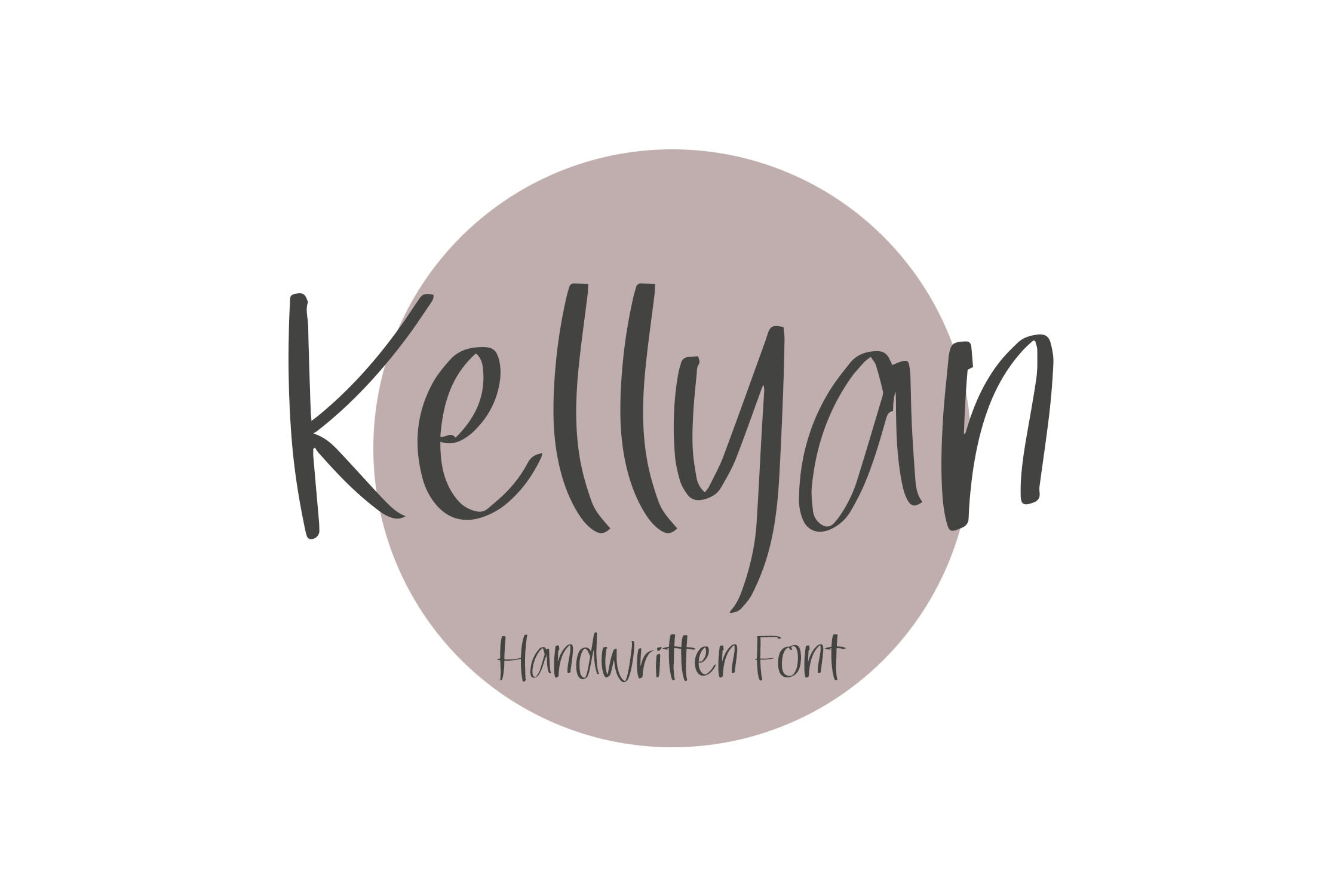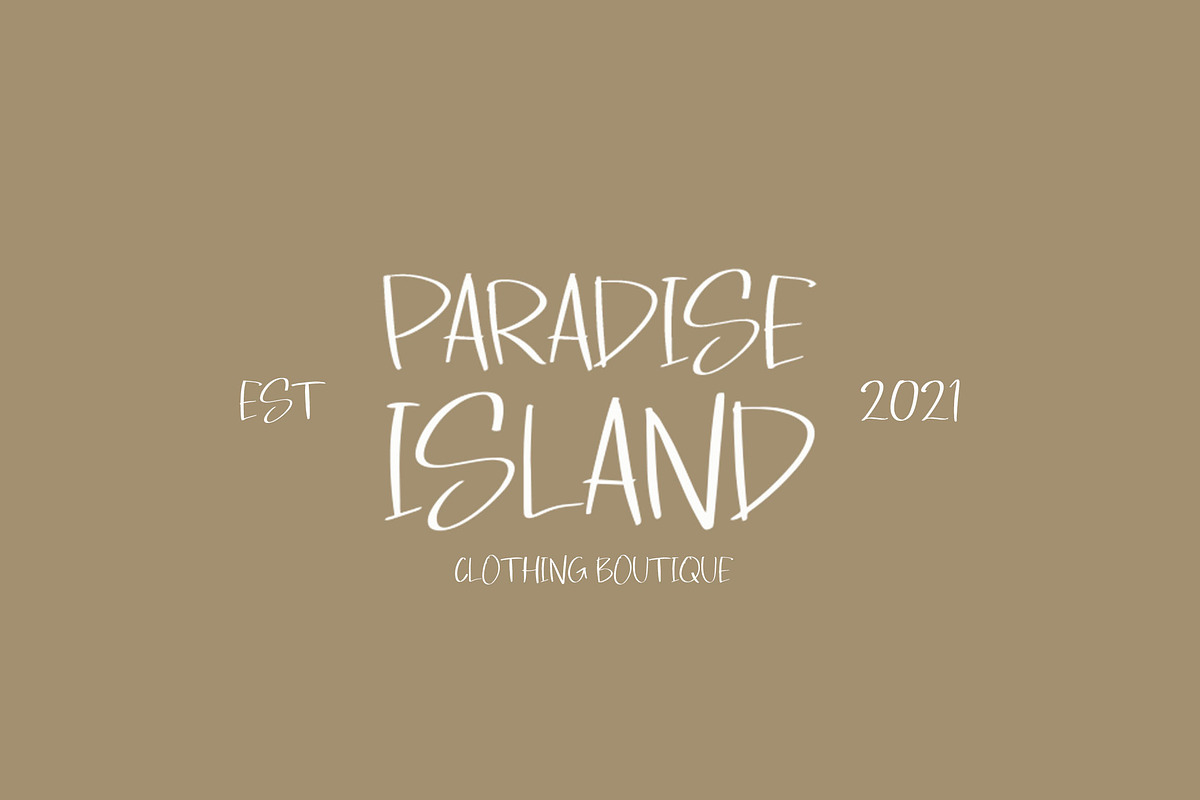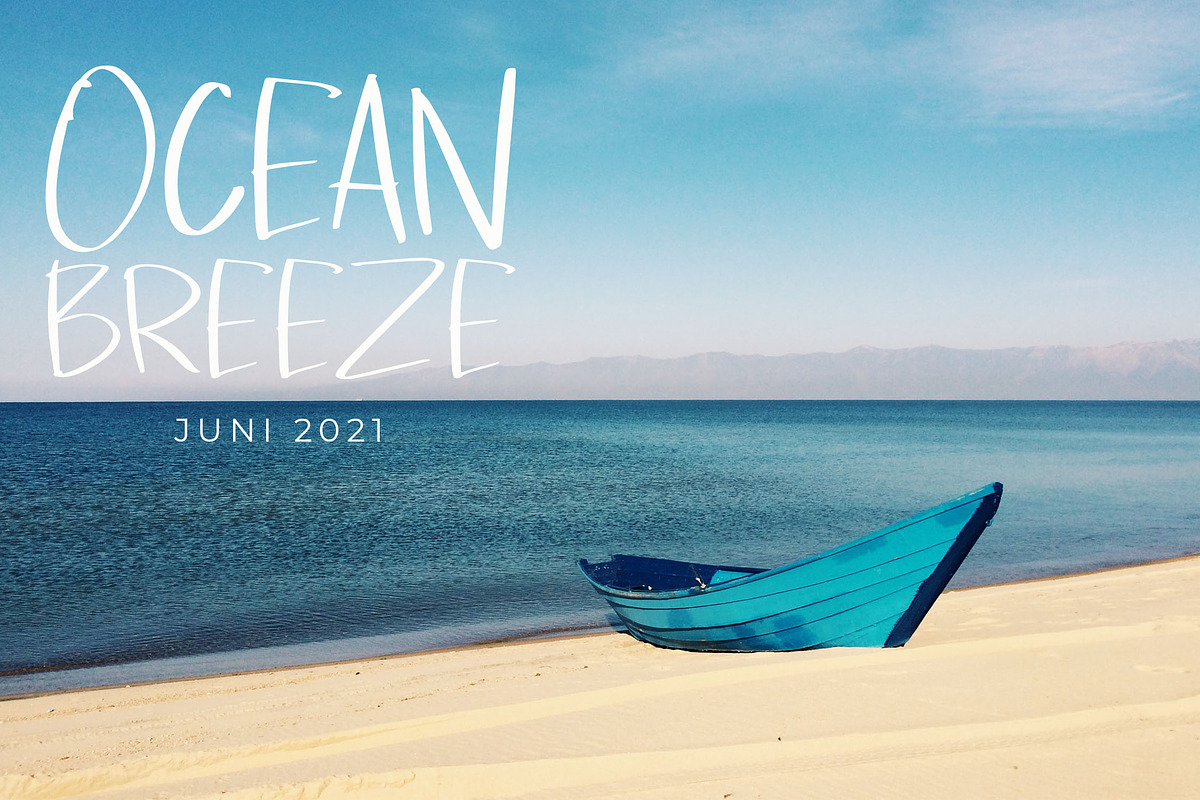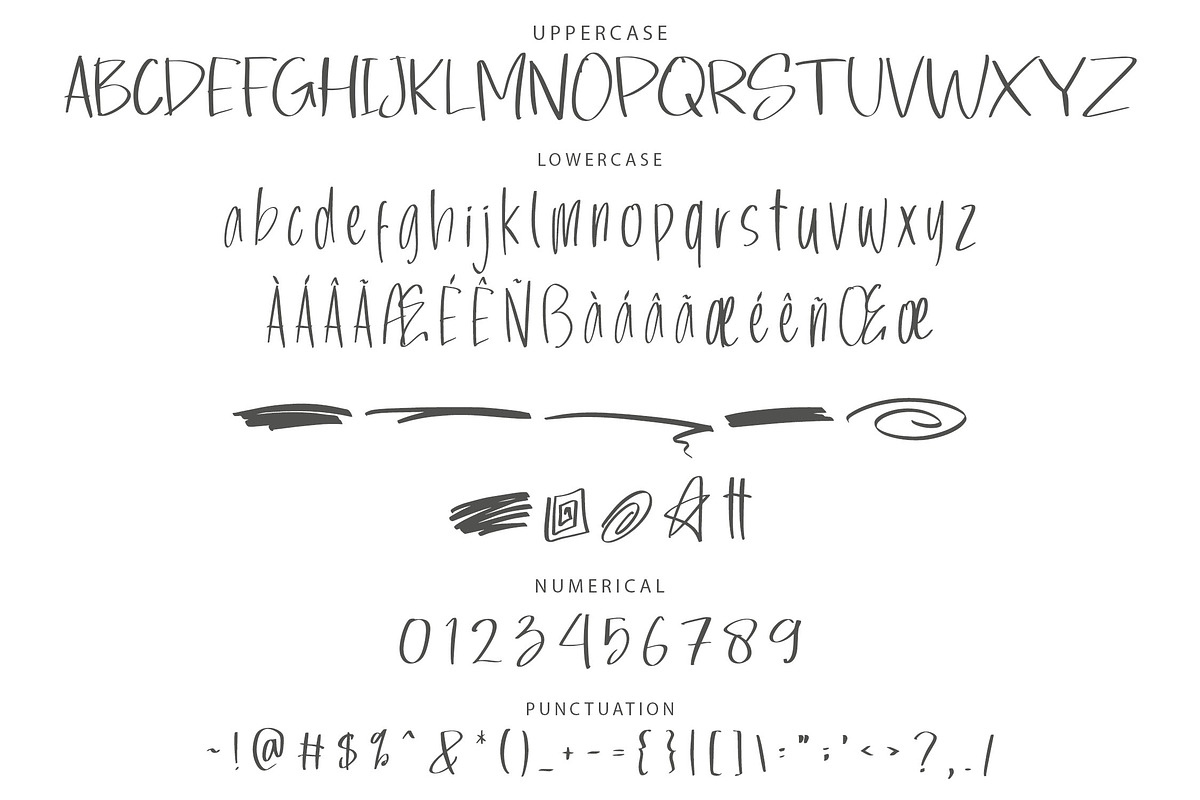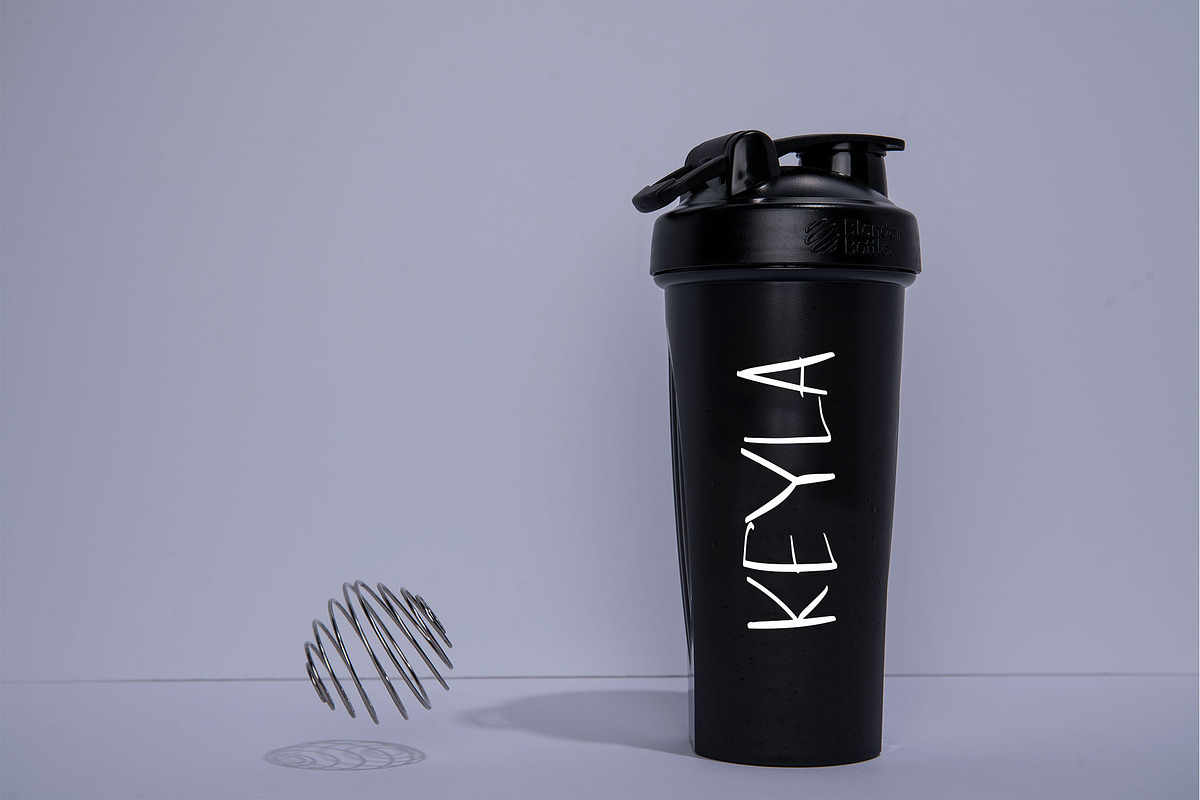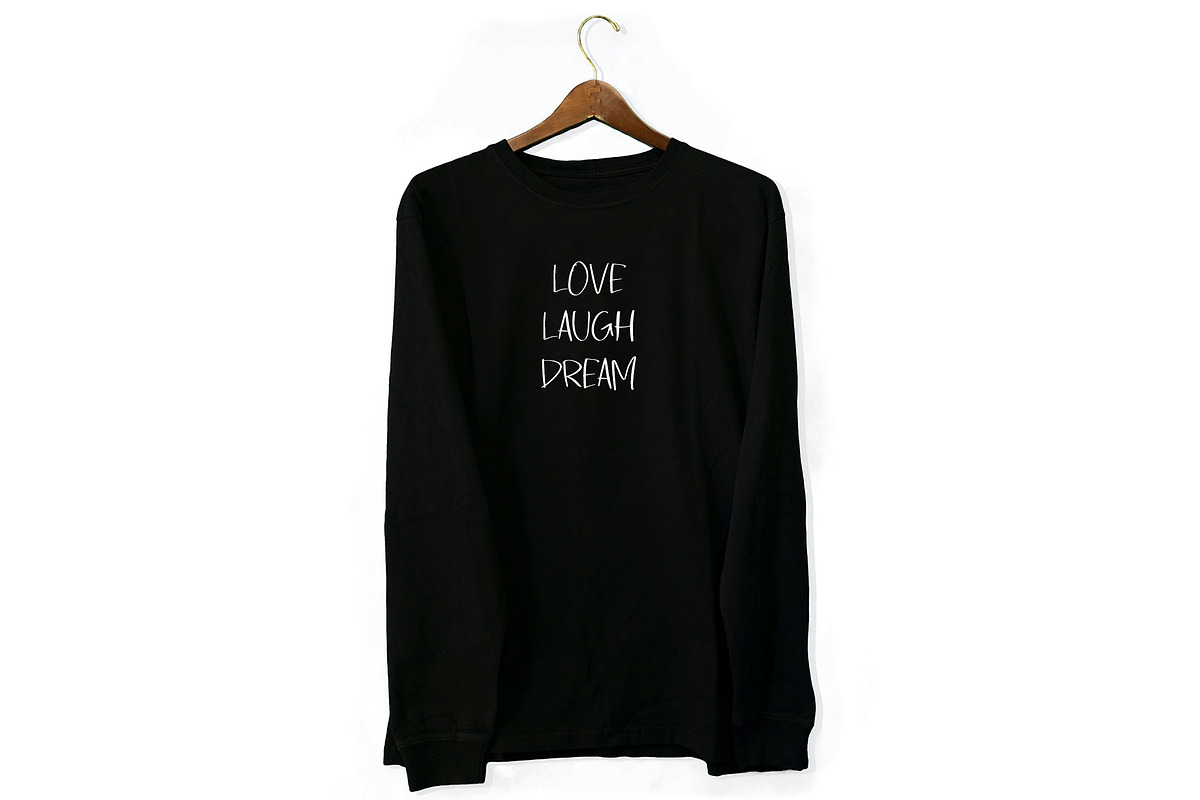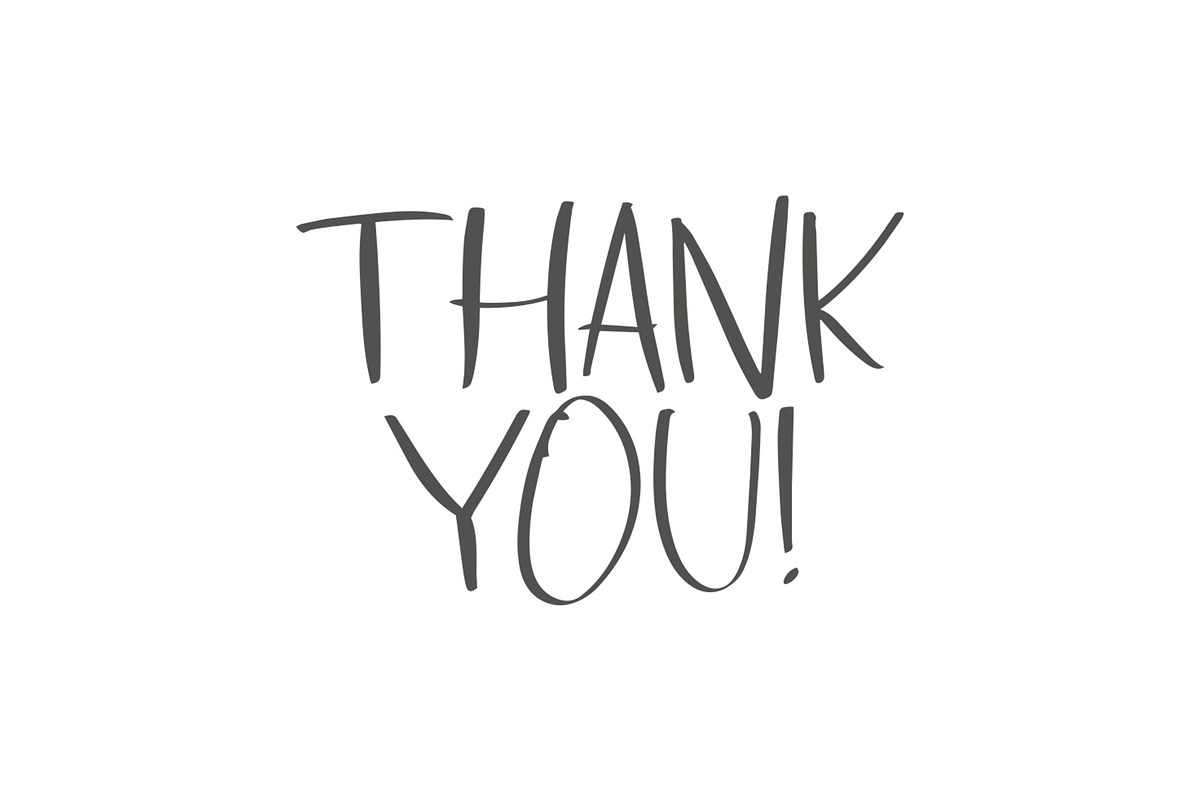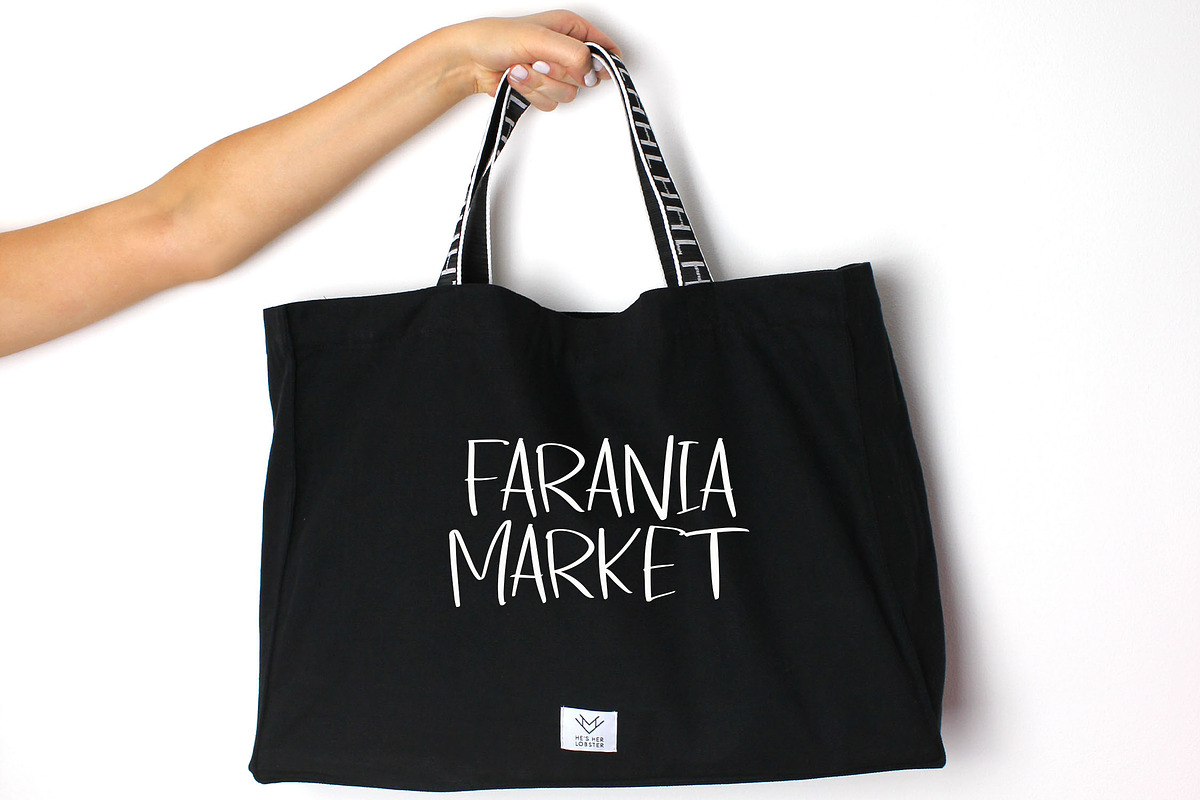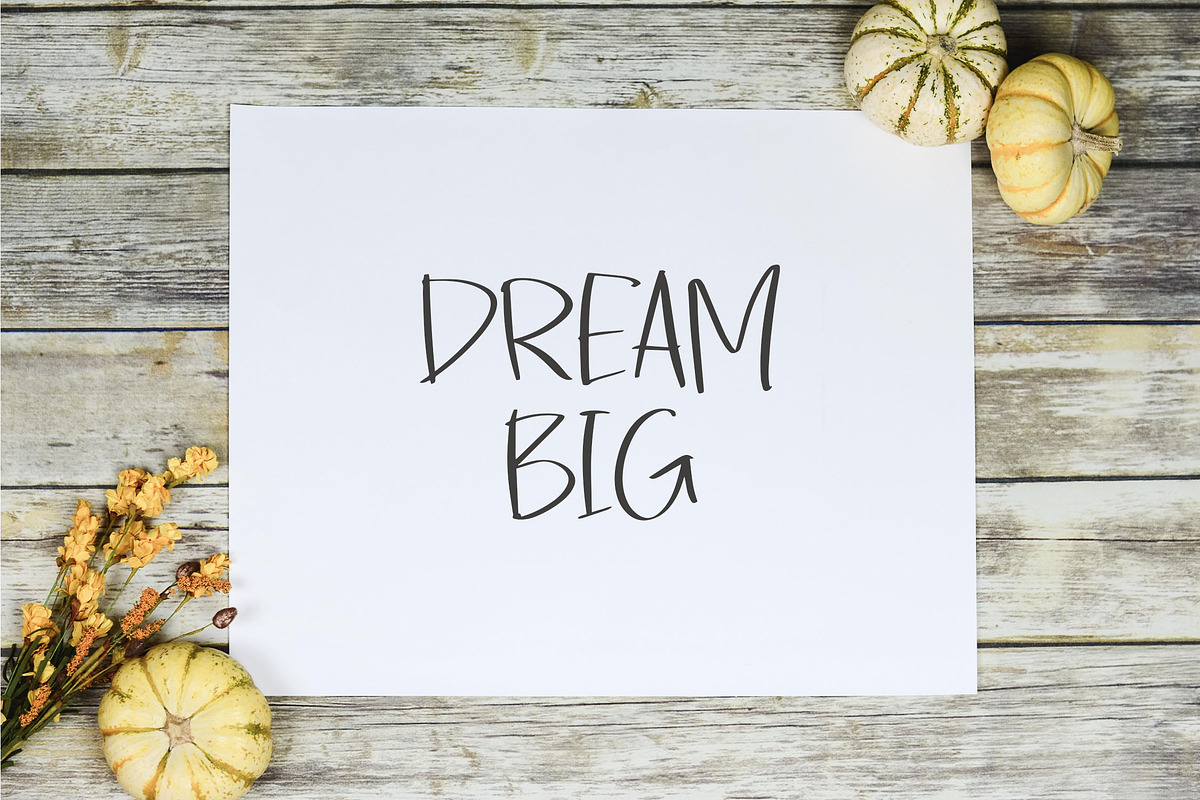
Kellyan Handwriting Brush Font
Kellyan - Handbrush Style Handwriting Font
Kellyan is a vibrant handwriting font with a bold handbrush style, designed with unique, artistic letterforms that add a natural, expressive touch to any project. Perfect for enhancing product visuals, Kellyan gives your designs a fresh, dynamic look, making it ideal for branding, packaging, social media, and other creative work.
- Beautiful ligatures for seamless letter connections
- Stylistic alternates for creative flexibility
- Swashes to enhance your designs
- Multilingual support for a global audience